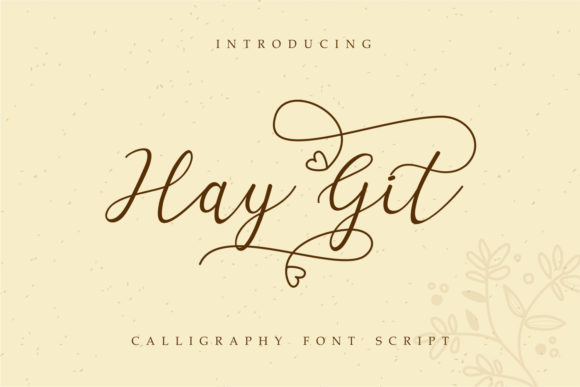
Immerse yourself in the enchanting world of Hay Git Font, the captivating script typeface that will transport your designs to new heights of elegance and charm.
Hay Git's characters pirouette effortlessly across the baseline, bestowing a touch of whimsy to your creations. Its casual yet refined spirit lends itself perfectly to a multitude of applications, from personalizing wedding invitations to crafting eye-catching logos and posters that leave a lasting impression.
Unleash your creativity and let Hay Git's delicate strokes ignite your imagination. Whether you're designing captivating headlines, creating bespoke labels for your products, or crafting heartfelt letters, Hay Git is the perfect companion to elevate your designs and leave an enduring impact.
From the allure of handwritten notes to the grandeur of posters that captivate, Hay Git's versatility knows no bounds. Its remarkable ability to blend seamlessly with both playful and sophisticated aesthetics empowers you to craft designs that resonate deeply with your audience.
Don't hesitate to embrace the beauty of Hay Git Font and infuse your designs with an enchanting touch of romance and grace. Let its enchanting characters dance across your creations and leave a trail of elegance that will capture hearts and inspire souls.